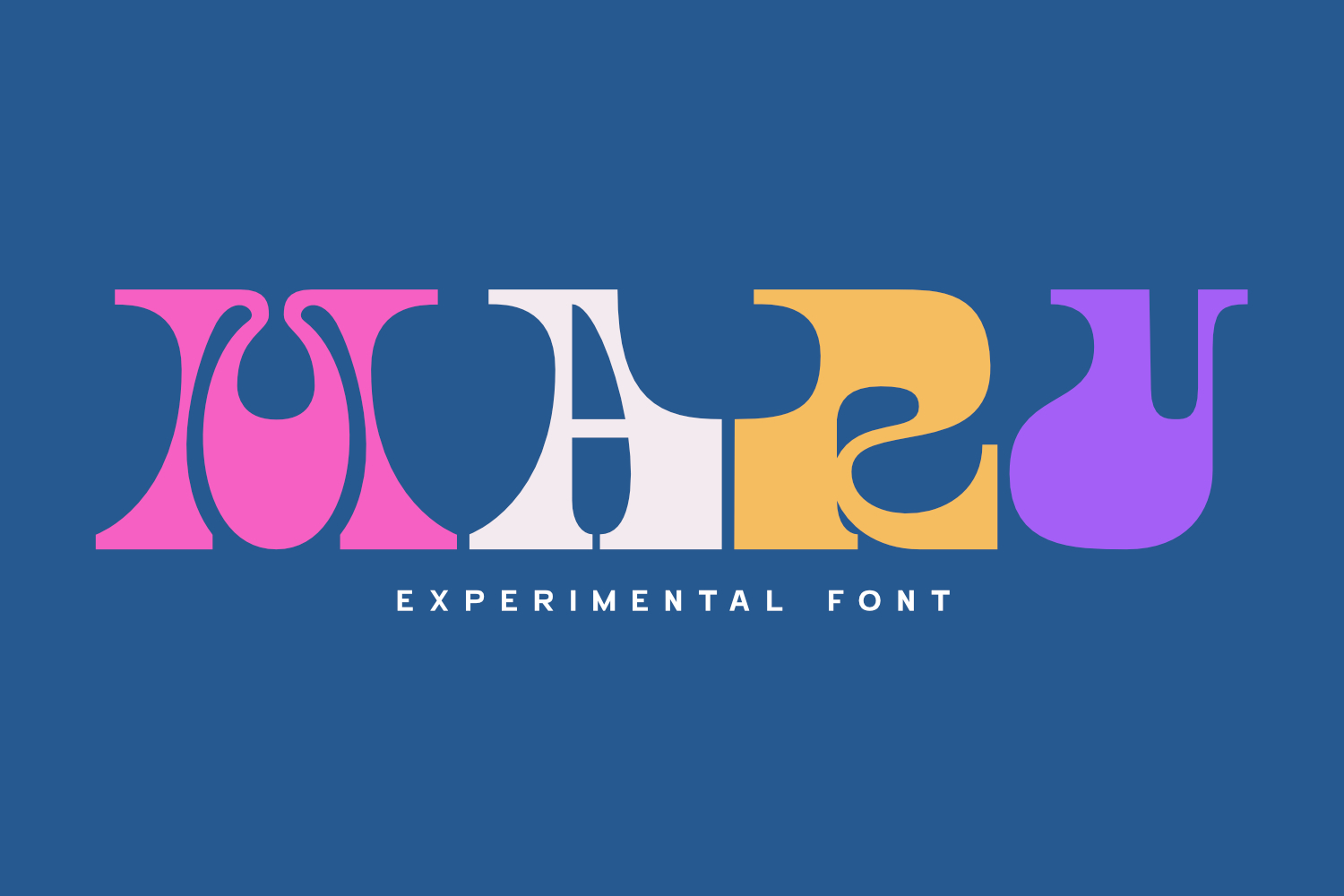
Maru - Experimental Font
MARU
A funy unique experimental font that has its own character in each letter, connected in a rhythm so that it is easy to read and does not change the function of the font itself. This font is suitable for all design needs, from branding design, logos, packaging, applications, stickers and many more.